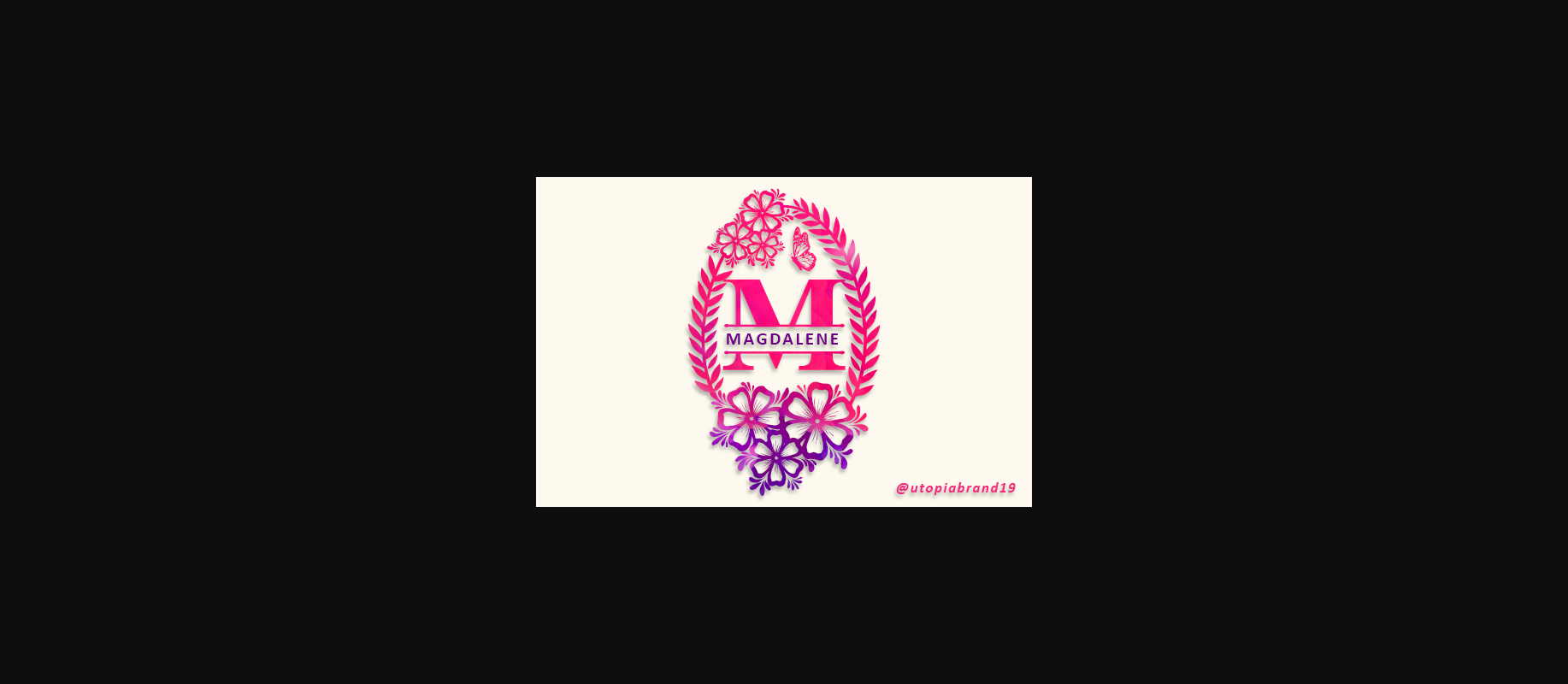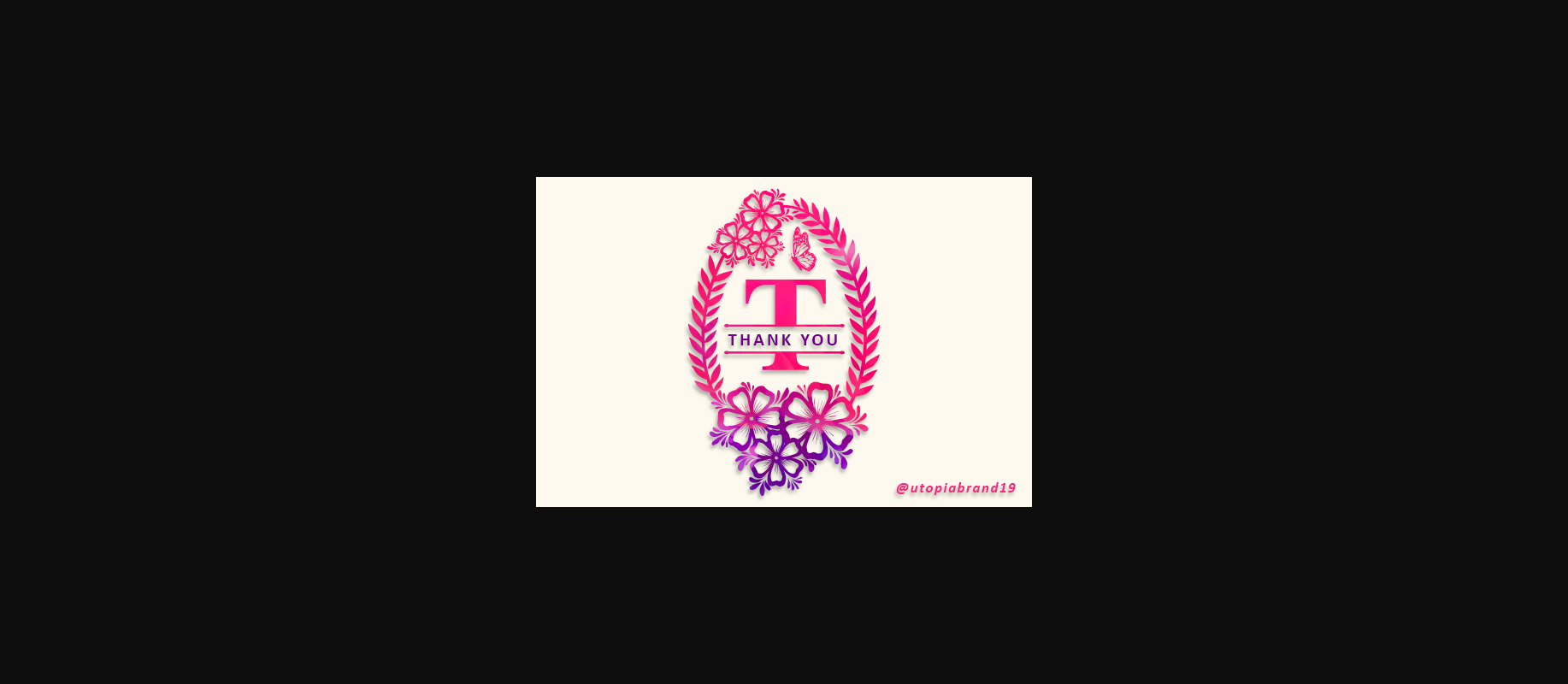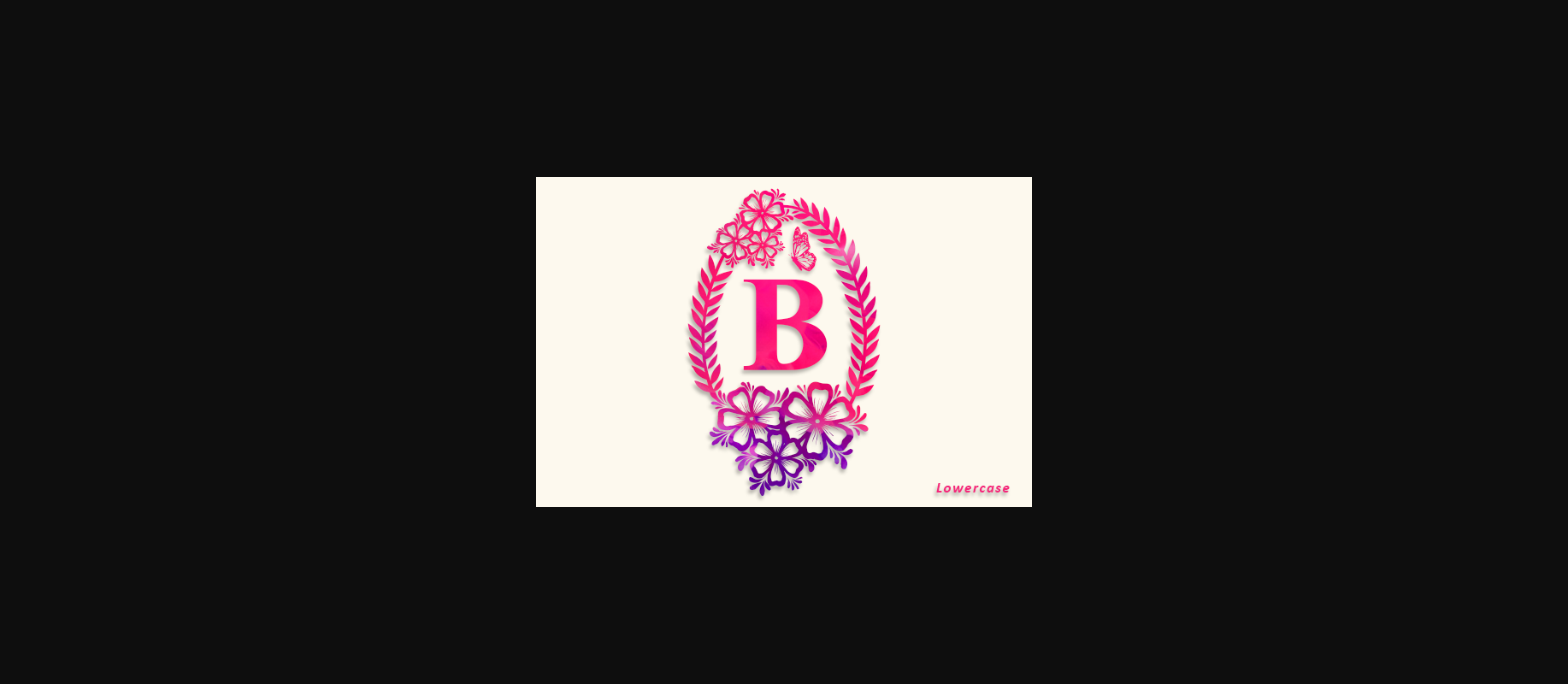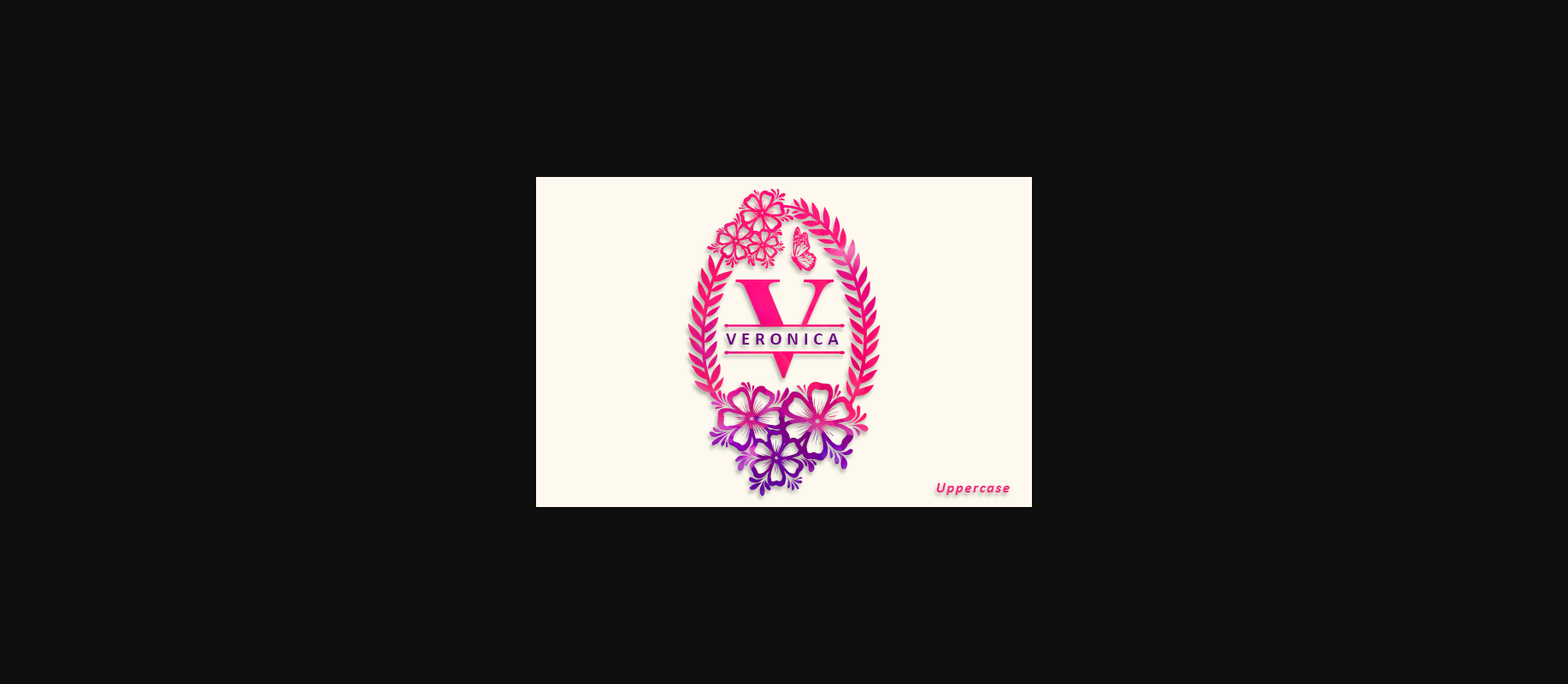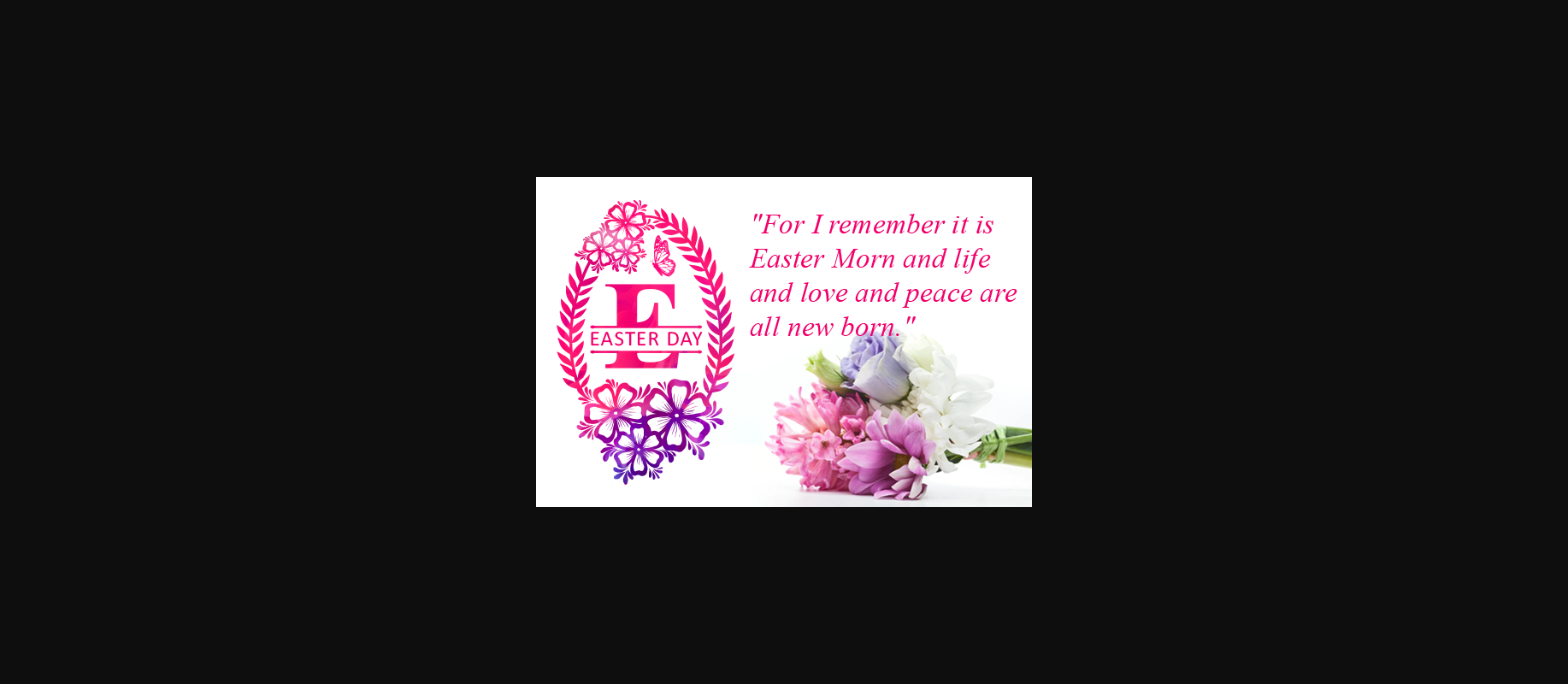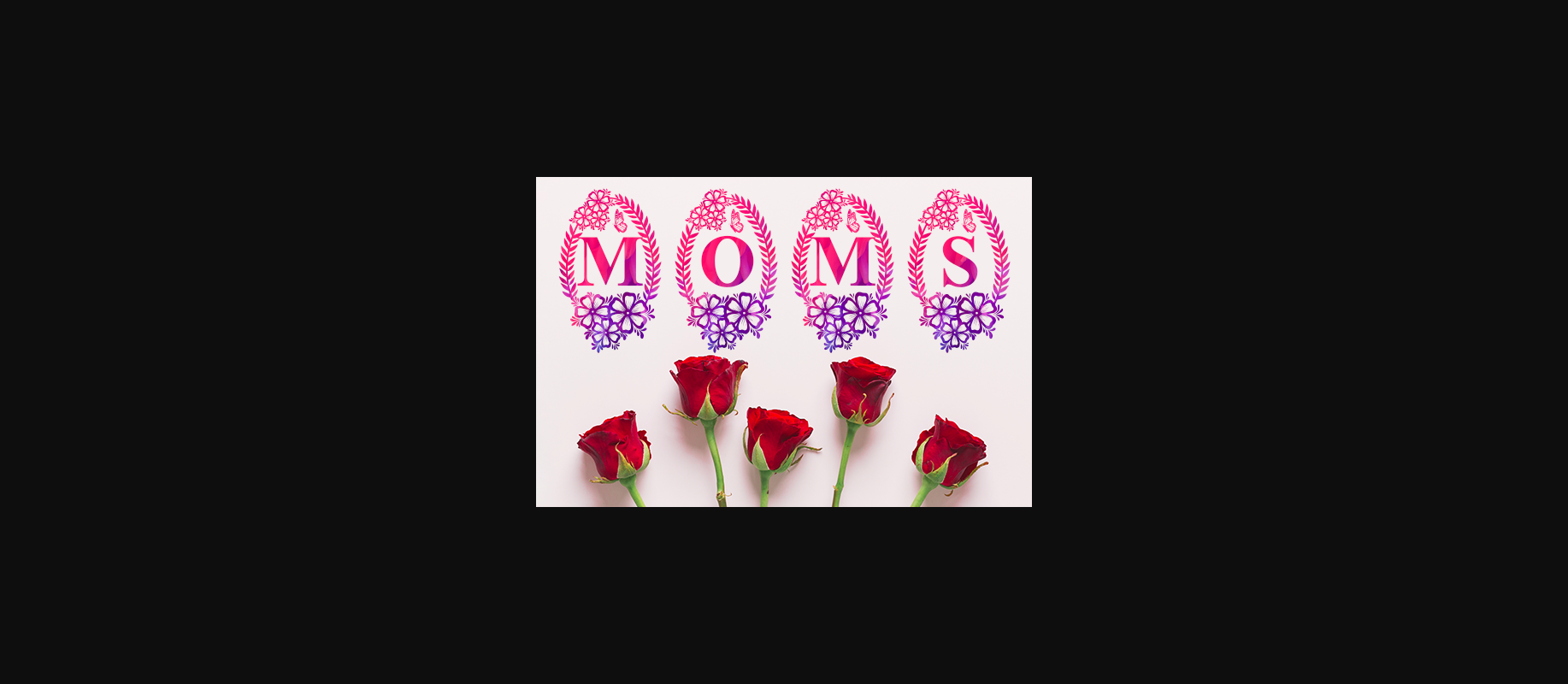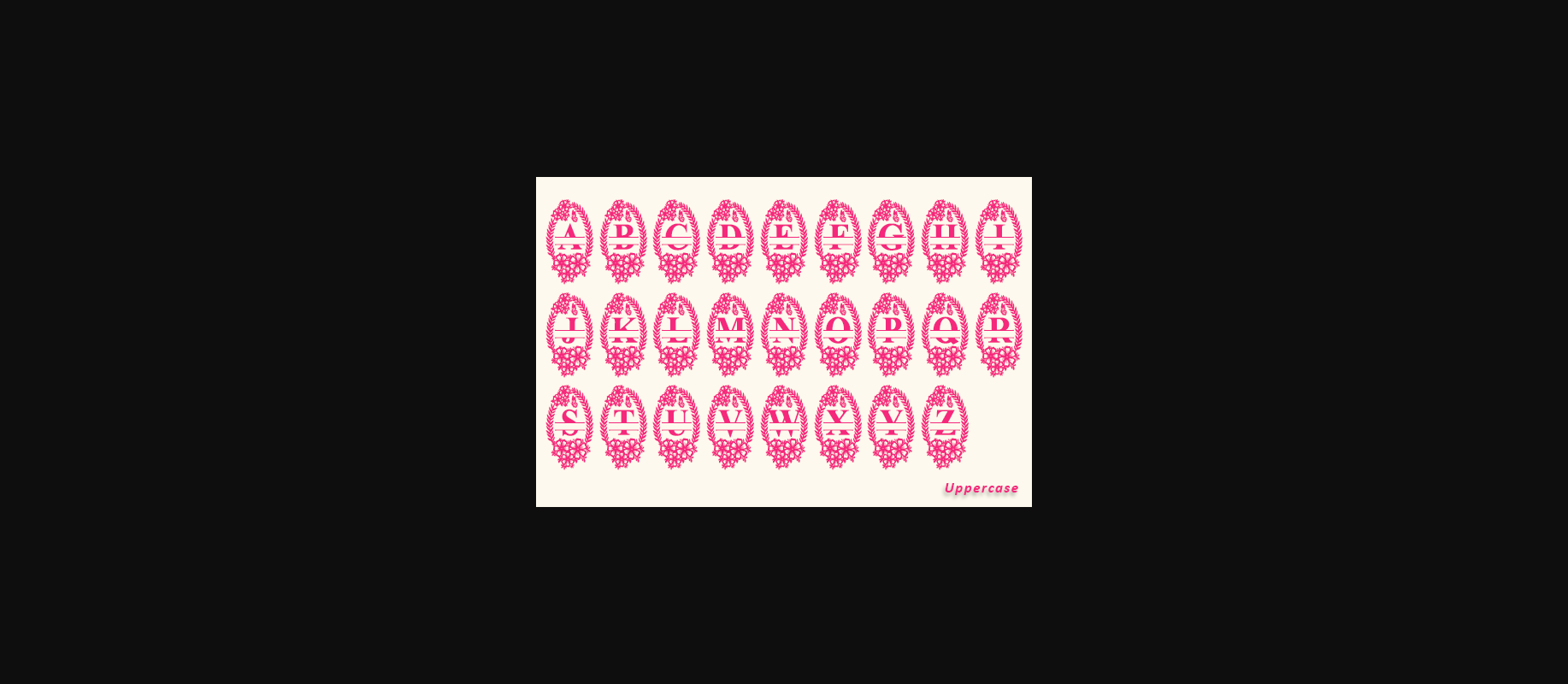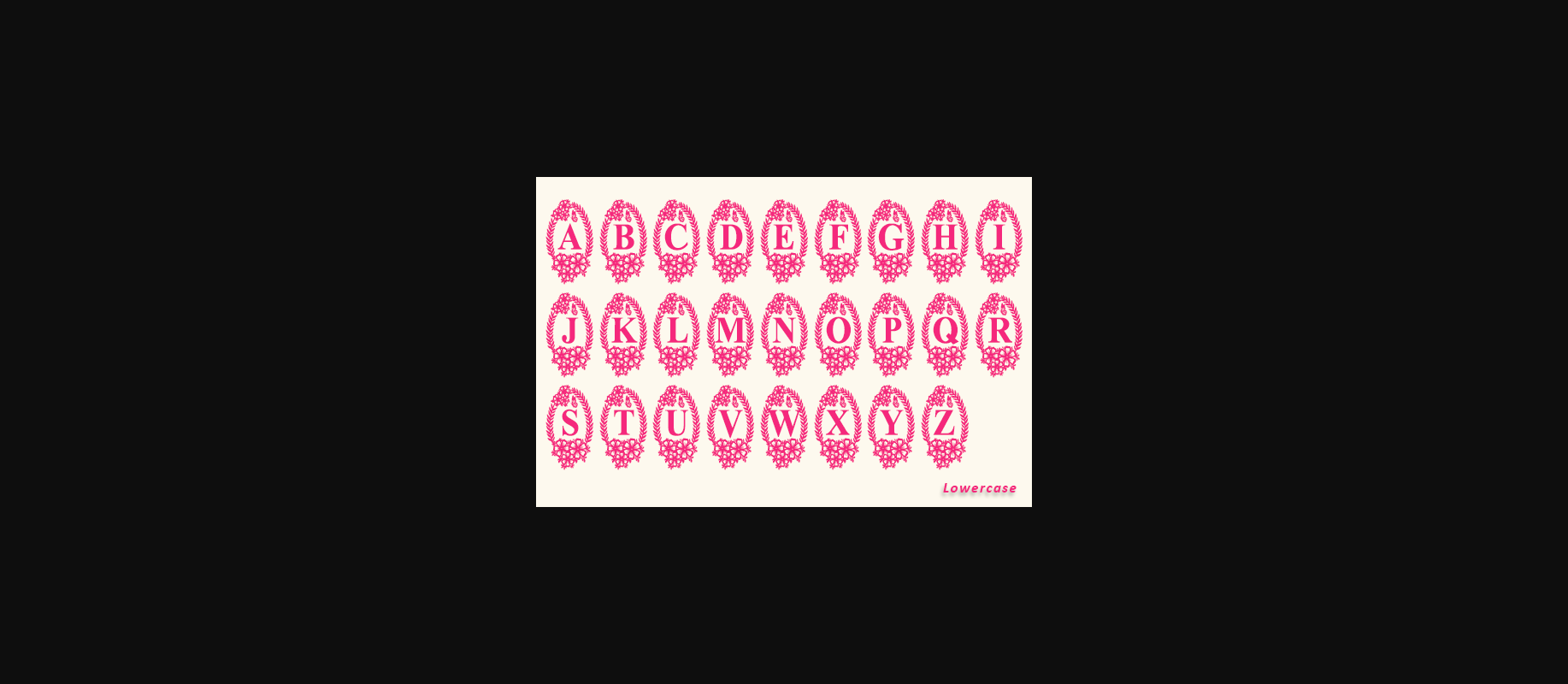
Magdalene Monogram Font
About Magdalene Monogram Font
Magdalene Monogram is a charming decorative font. Fall in love with its authentic feel and use it to create gorgeous invitations, beautiful stationary art, eye-catching social media posts, and cute greeting cards.